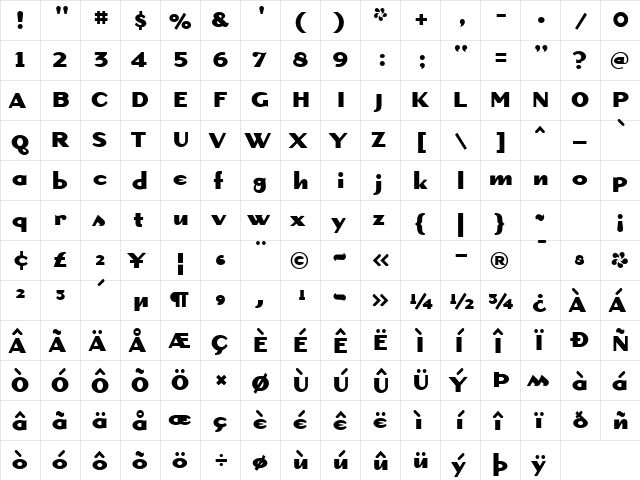
DogmaBold Bold
Design Context for DogmaBold Typeface
DogmaBold is a composed and adaptable typeface that performs quietly and consistently across a wide range of design contexts. Its bold stroke weight gives it real presence on the page.